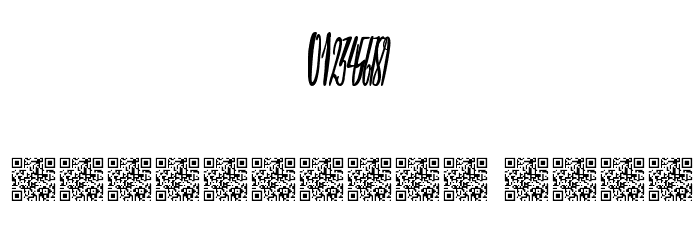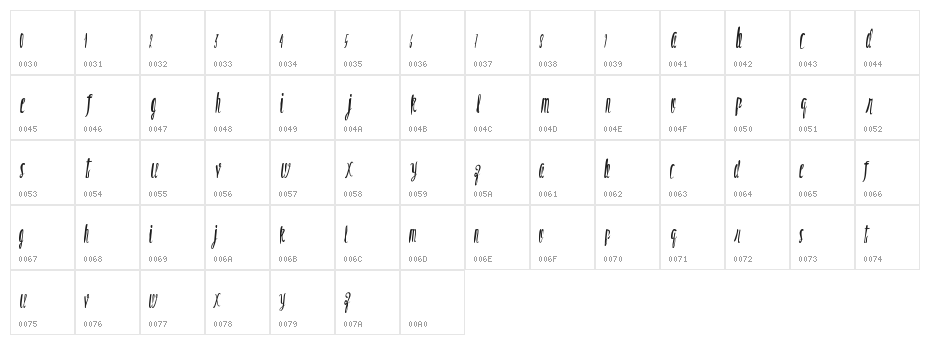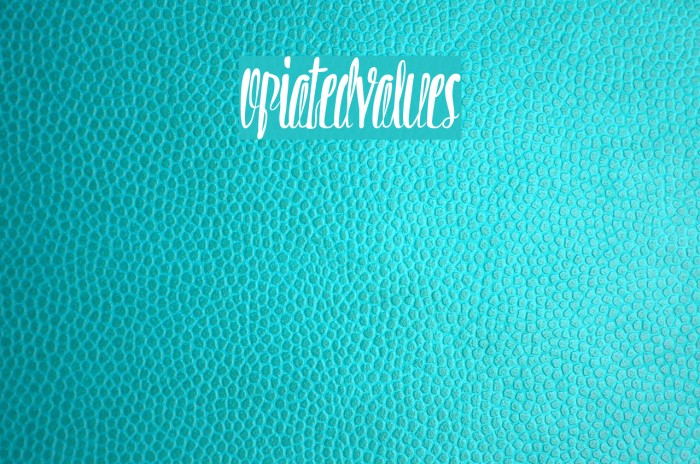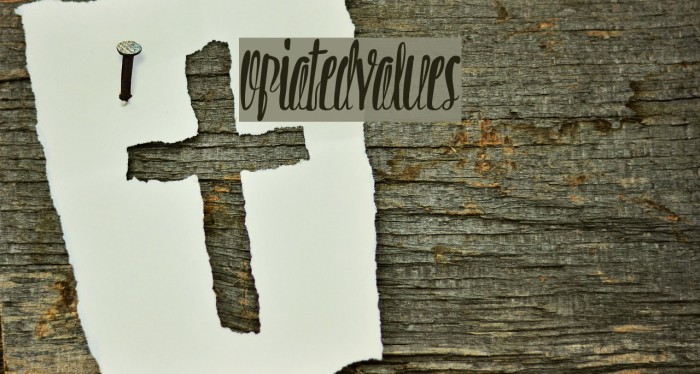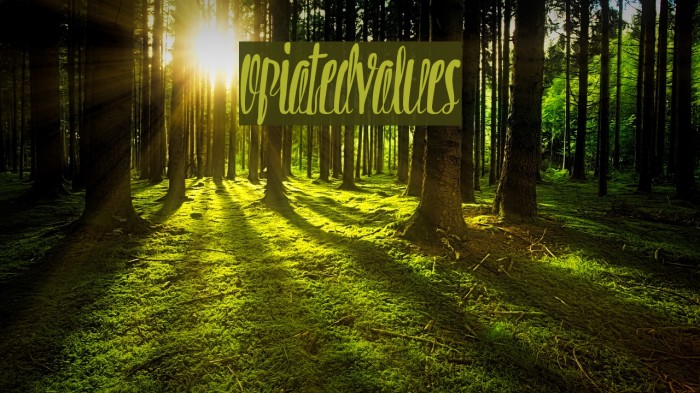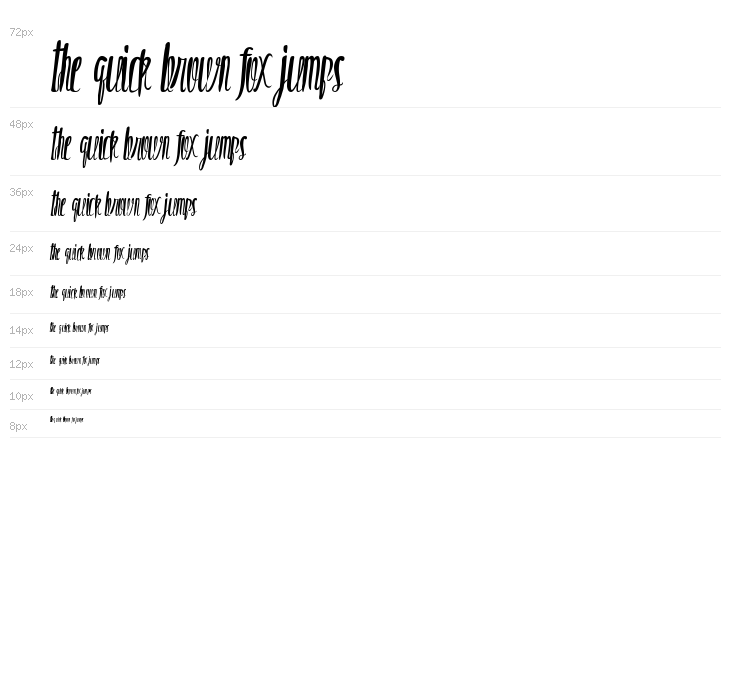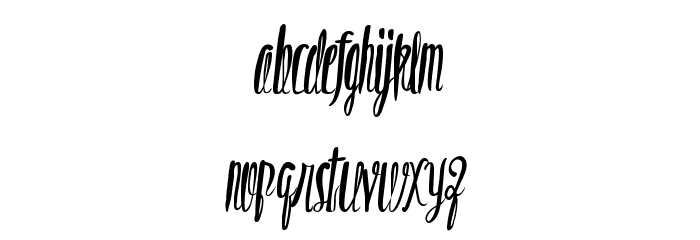
OpiatedValues Font
OpiatedValues Description
This font exhibits a dynamic and flowing script style, characterized by its elegant and cursive letterforms. The uppercase and lowercase letters are designed with a consistent slant, giving the font a sense of movement and fluidity. The strokes are moderately thick, with a slight variation in width that adds a touch of sophistication. The numbers are styled to match the letters, maintaining the overall cohesive look. This font is ideal for projects that require a personal and artistic touch, such as invitations, greeting cards, or branding materials. The special characters are seamlessly integrated, ensuring versatility in various design contexts.
| Proposed Projects | Ideal for invitations, greeting cards, branding materials, and artistic designs. |